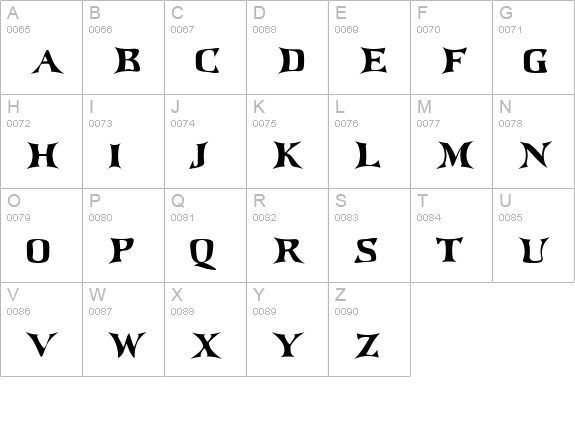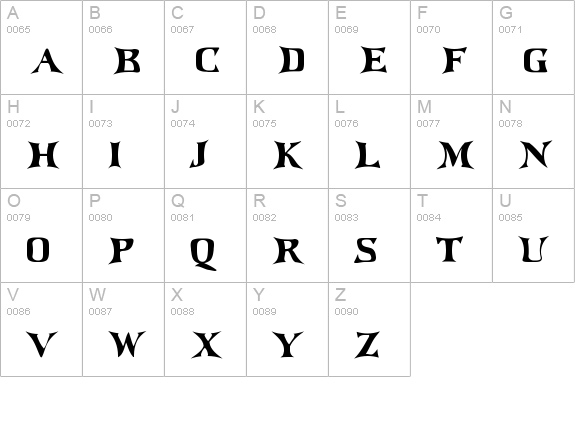
IrishJig Font Details
Introducing IrishJig font, a captivating and lively typeface that will transport you to the enchanting landscapes of Ireland. This font embodies the spirit of traditional Irish dancing, with its playful and rhythmic letterforms that dance across the page. IrishJig is a versatile font that can add a touch of whimsy and charm to any project. Whether you're designing a St. Patrick's Day invitation, creating a logo for an Irish pub, or adding a touch of Celtic magic to your website, IrishJig will bring your designs to life. What's even better? IrishJig is absolutely free! That's right, you can download this delightful font for no cost at all. Simply head over to FontsMarket.com and get ready to unleash your creativity with this captivating typeface. With its generous selection of glyphs and alternate characters, IrishJig offers endless possibilities for customization. Let your imagination run wild as you experiment with different letter combinations and create unique typographic compositions. Whether you're a professional designer or just starting out, IrishJig is a font that will inspire and delight. Its bold and energetic personality will make your designs stand out and leave a lasting impression. So why wait? Don't miss out on this incredible opportunity to enhance your projects with the captivating IrishJig font. Download it now for free at FontsMarket.com and let the magic of Ireland infuse your designs.